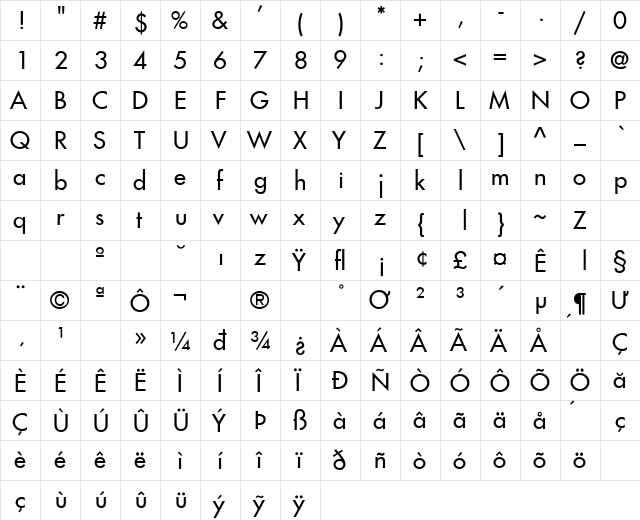
Fujiyama Regular
Design Context for Fujiyama Typeface
Fujiyama takes a measured approach to typography — its balanced proportions and neutral character make it a reliable workhorse for both digital and print work.